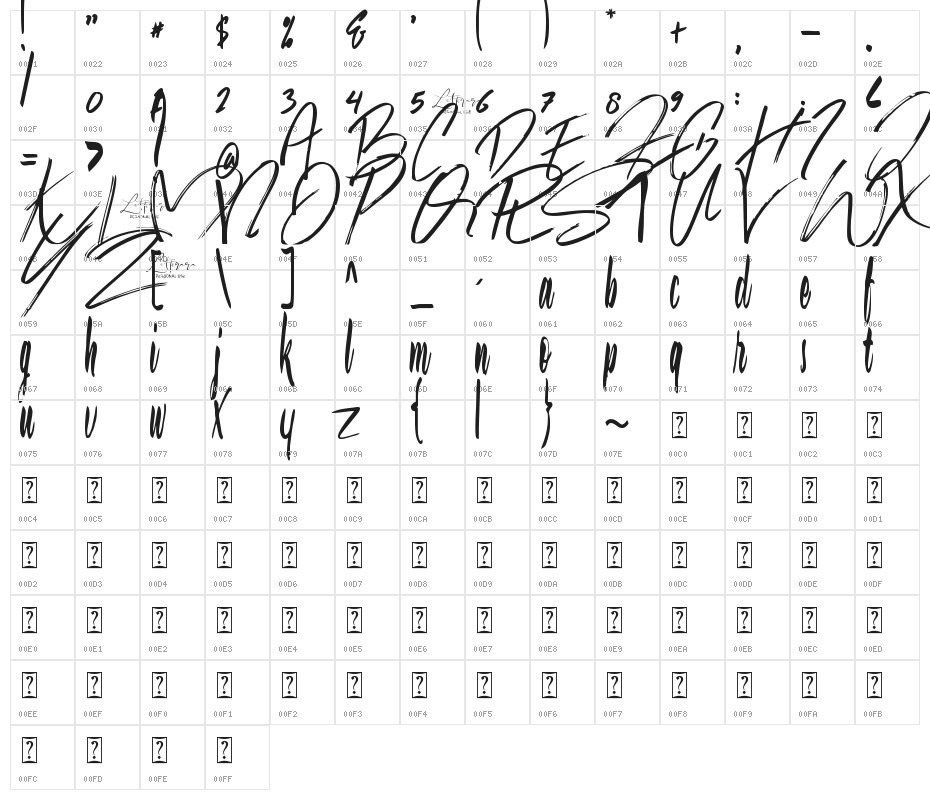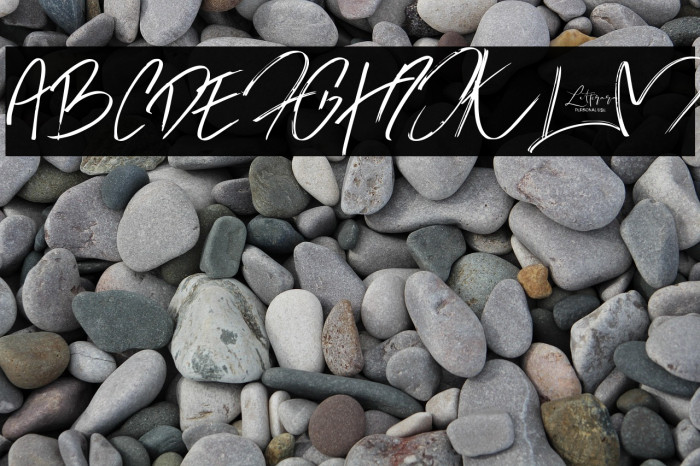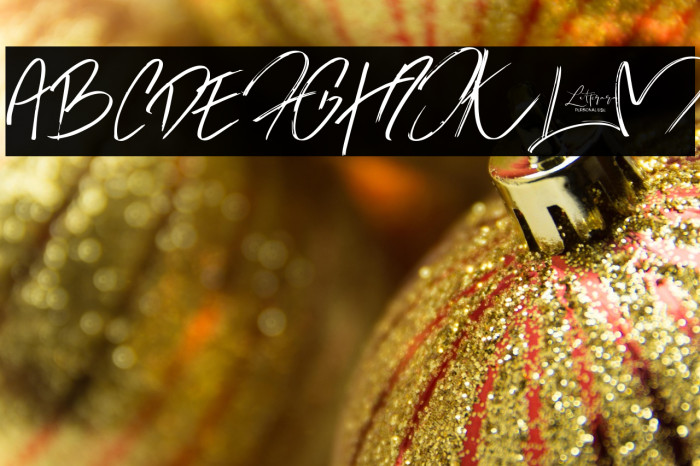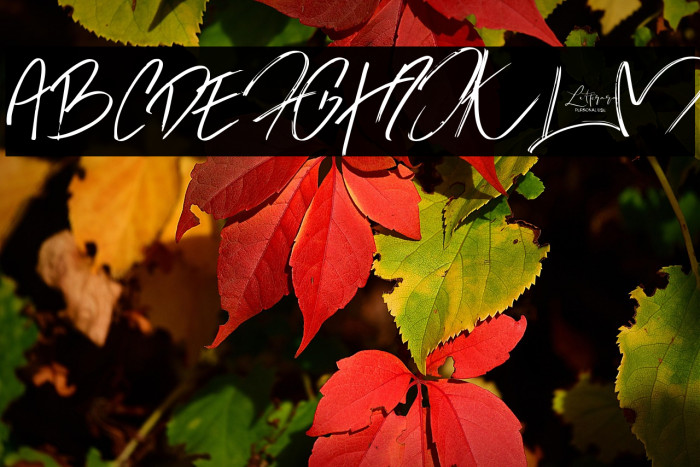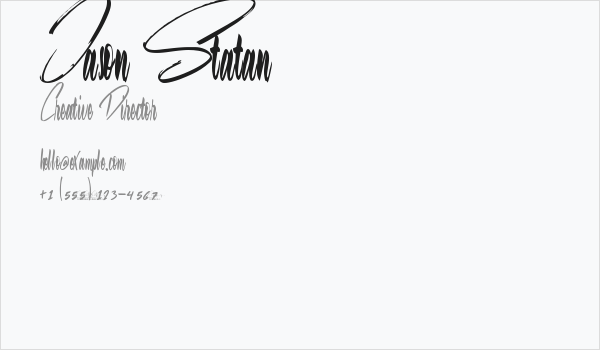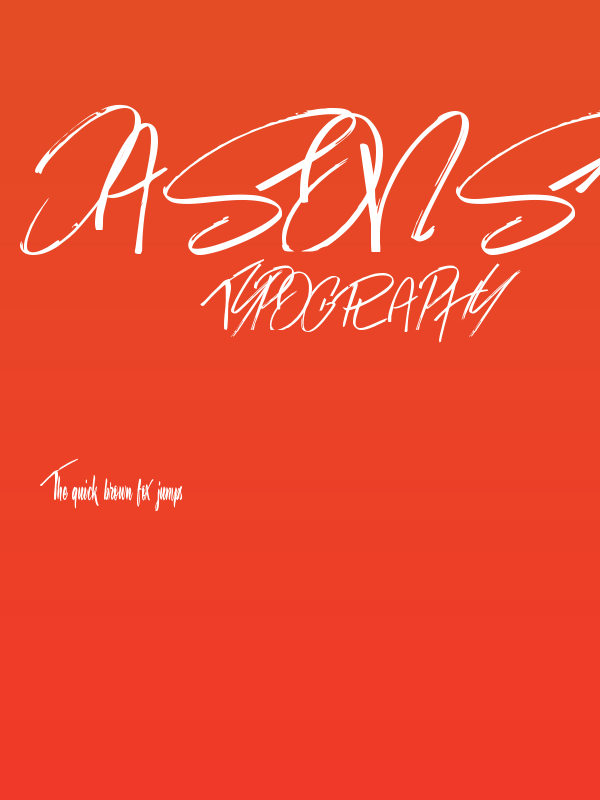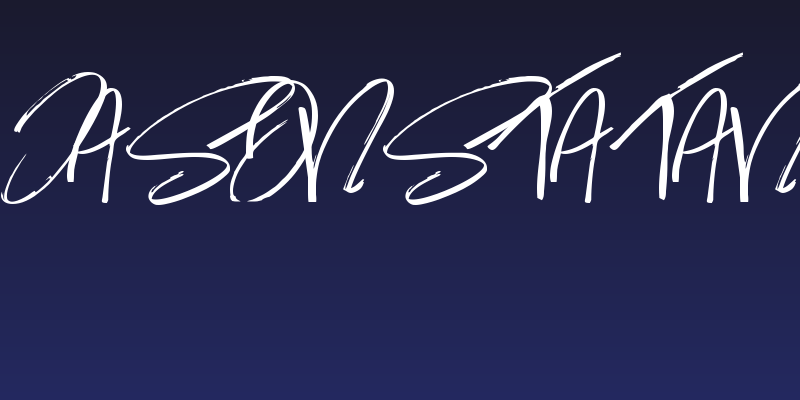
Jason Statan Font
Jason Statan Description
This font exhibits a dynamic and energetic handwritten style, characterized by its fluid and cursive letterforms. The uppercase letters are elongated and slightly slanted, giving a sense of movement and speed. The lowercase letters maintain a consistent flow, with some characters featuring loops and flourishes that add to the overall expressive nature of the font. The numerals are bold and maintain the same cursive style, ensuring uniformity across all characters. Special characters are integrated seamlessly, maintaining the handwritten aesthetic. This font is ideal for projects that require a personal touch or a sense of spontaneity.
| Proposed Projects | Ideal for personal branding, invitations, greeting cards, and artistic projects that require a personal and energetic touch. |